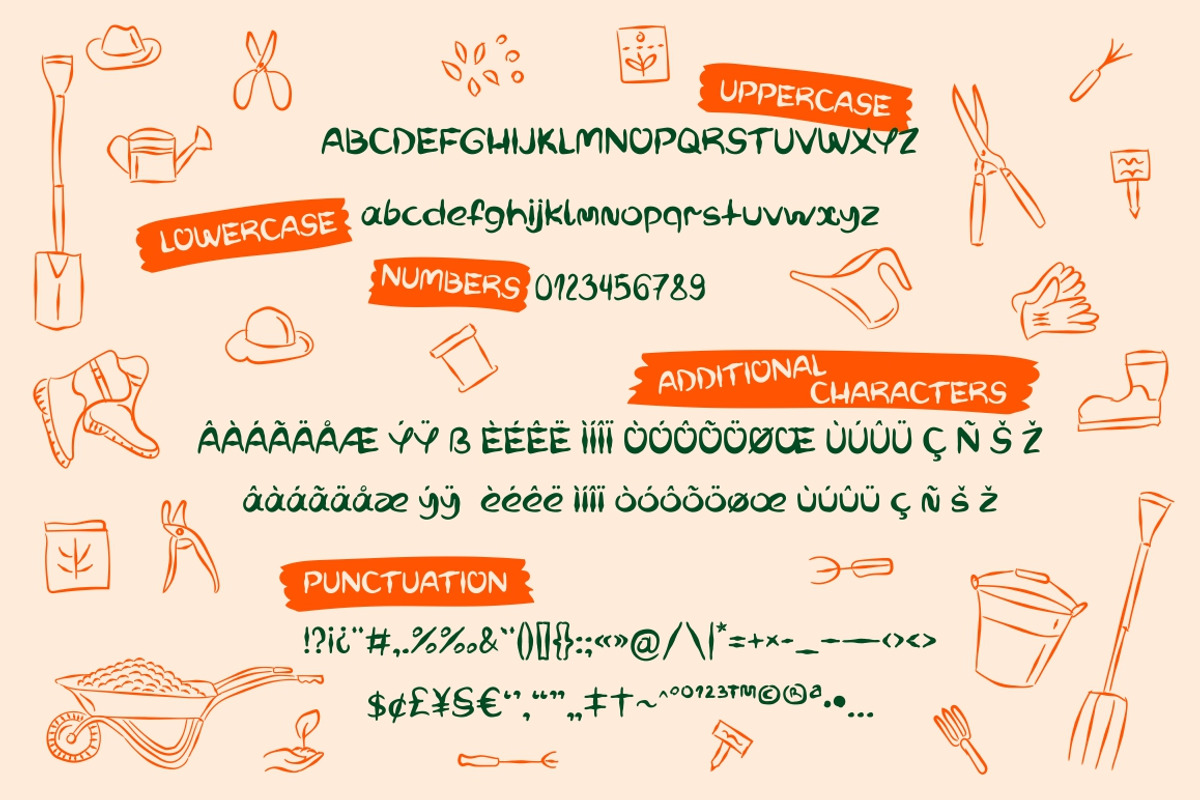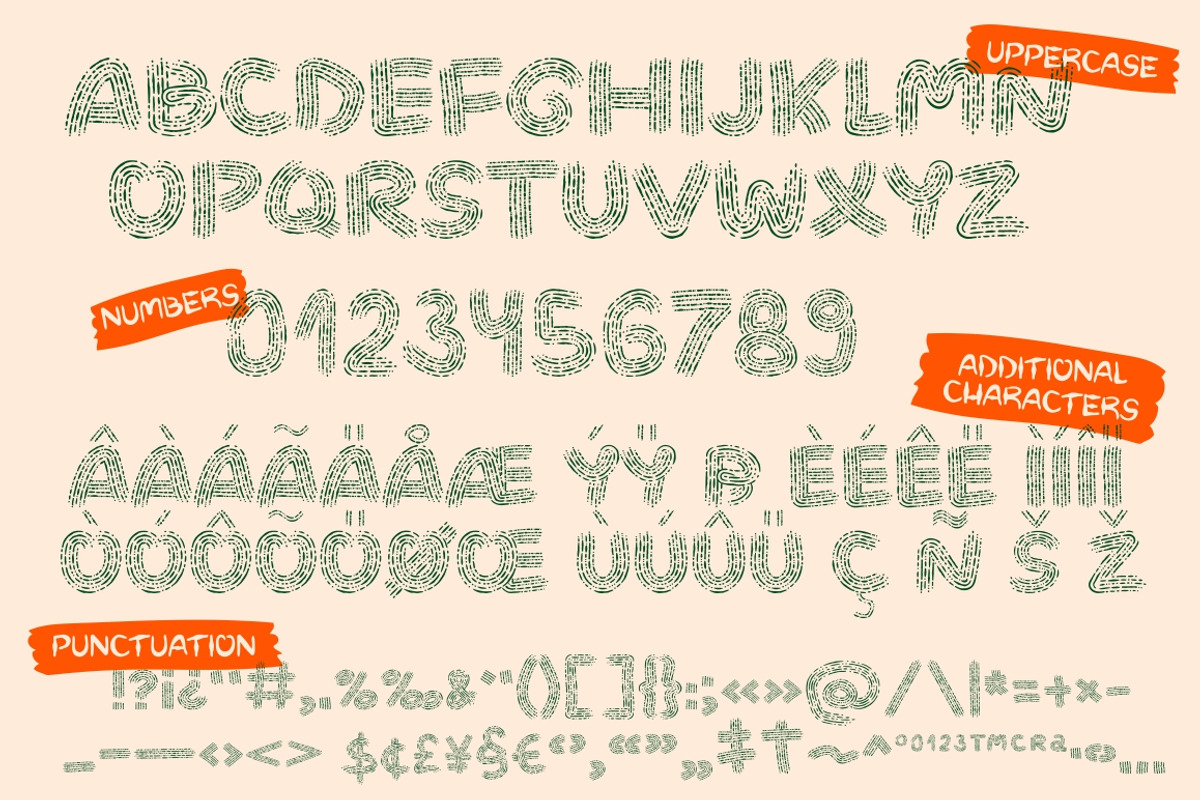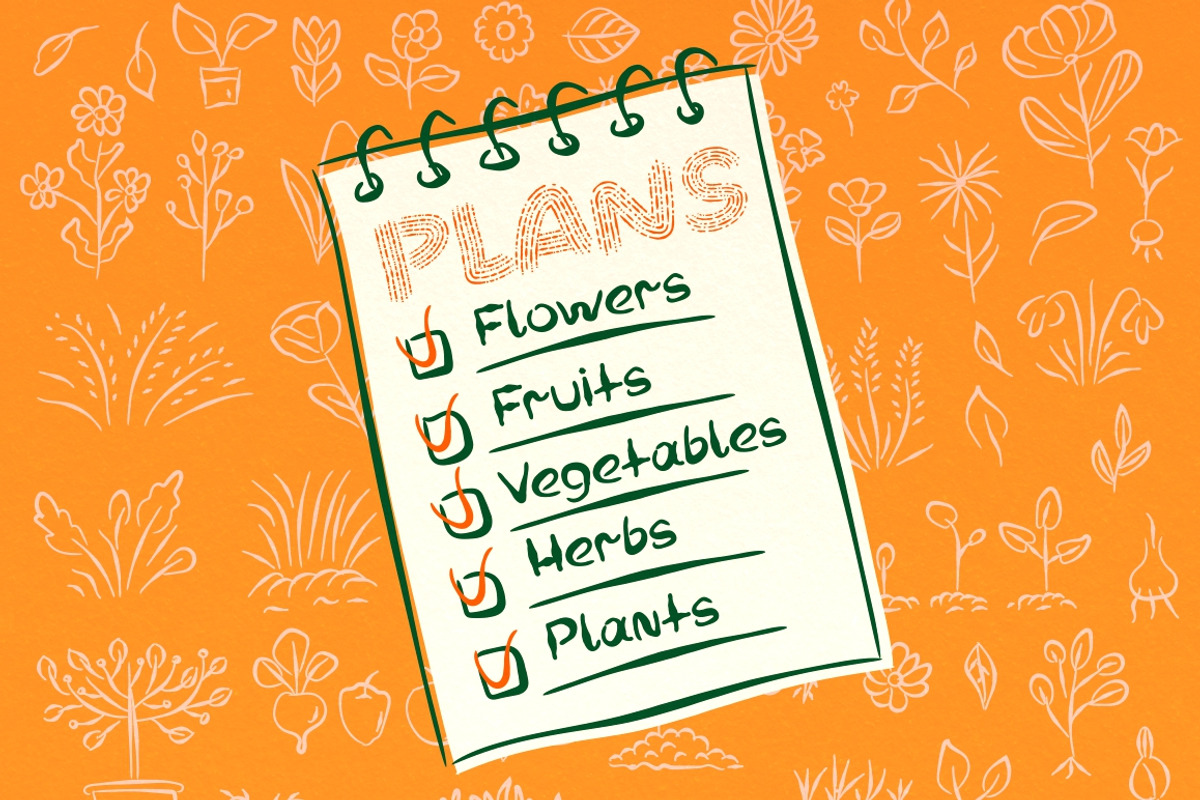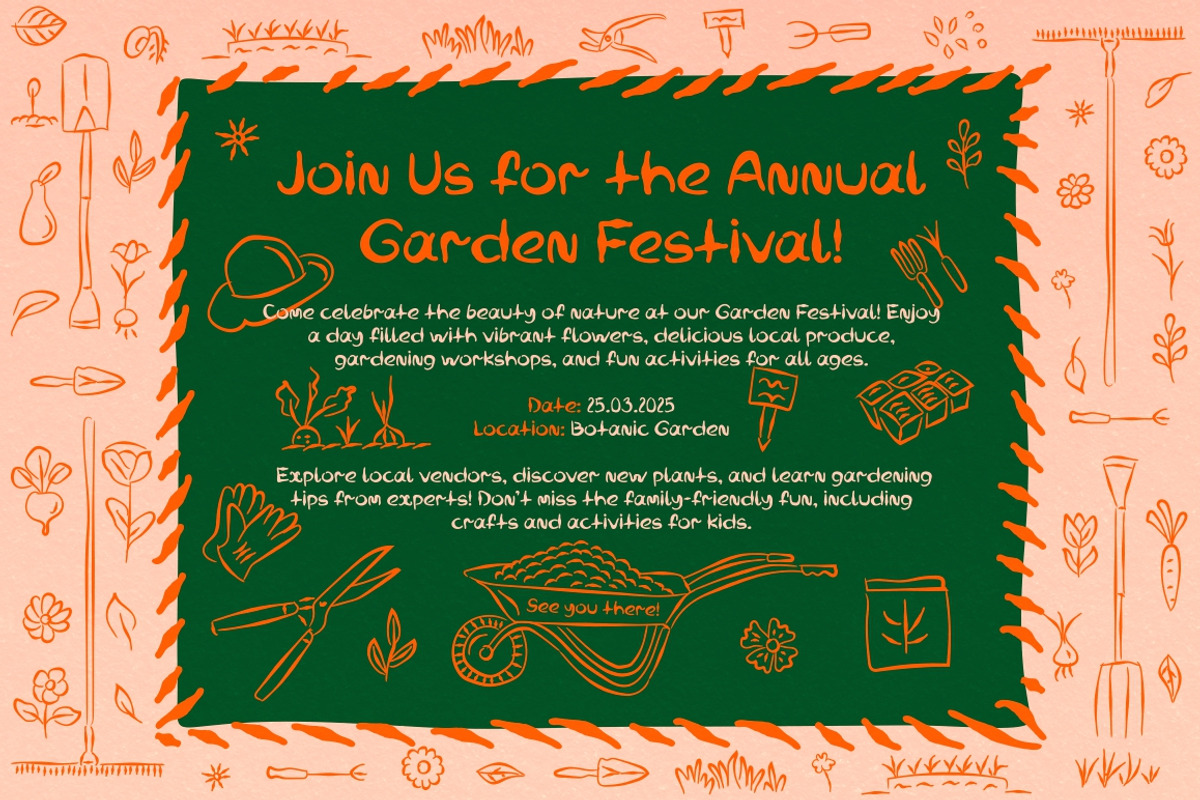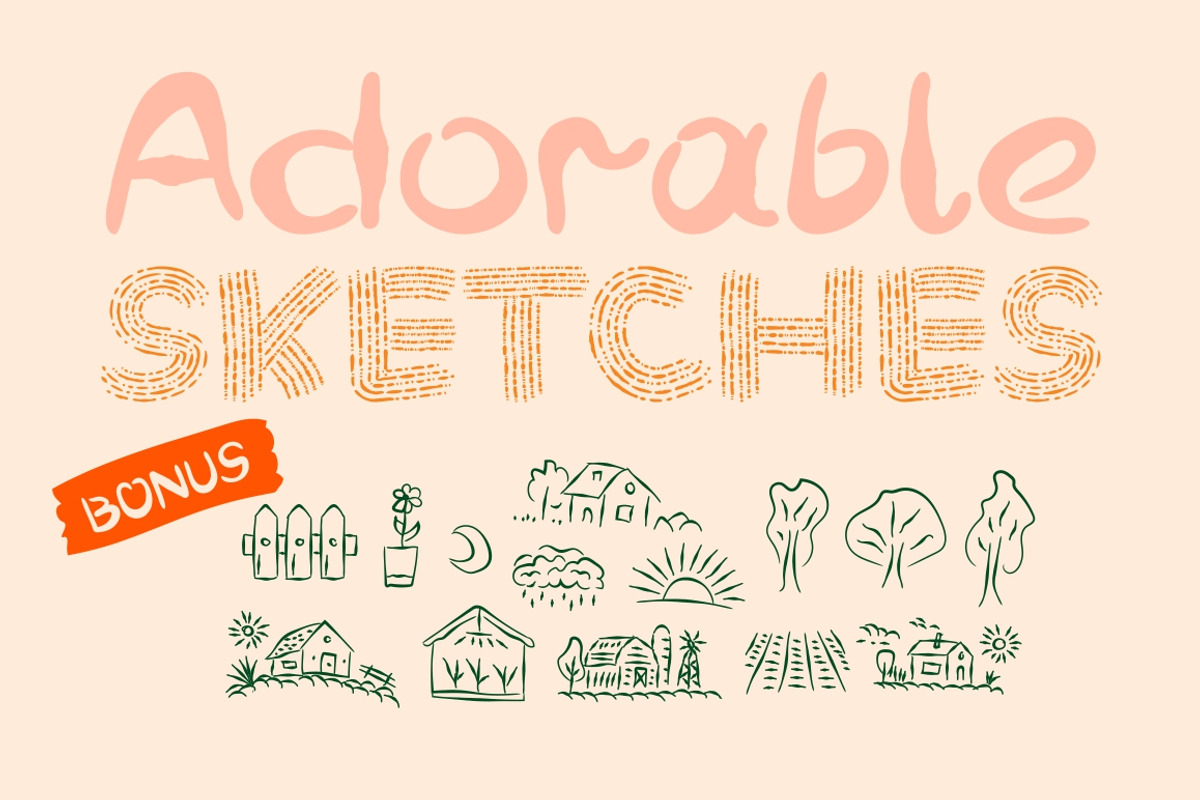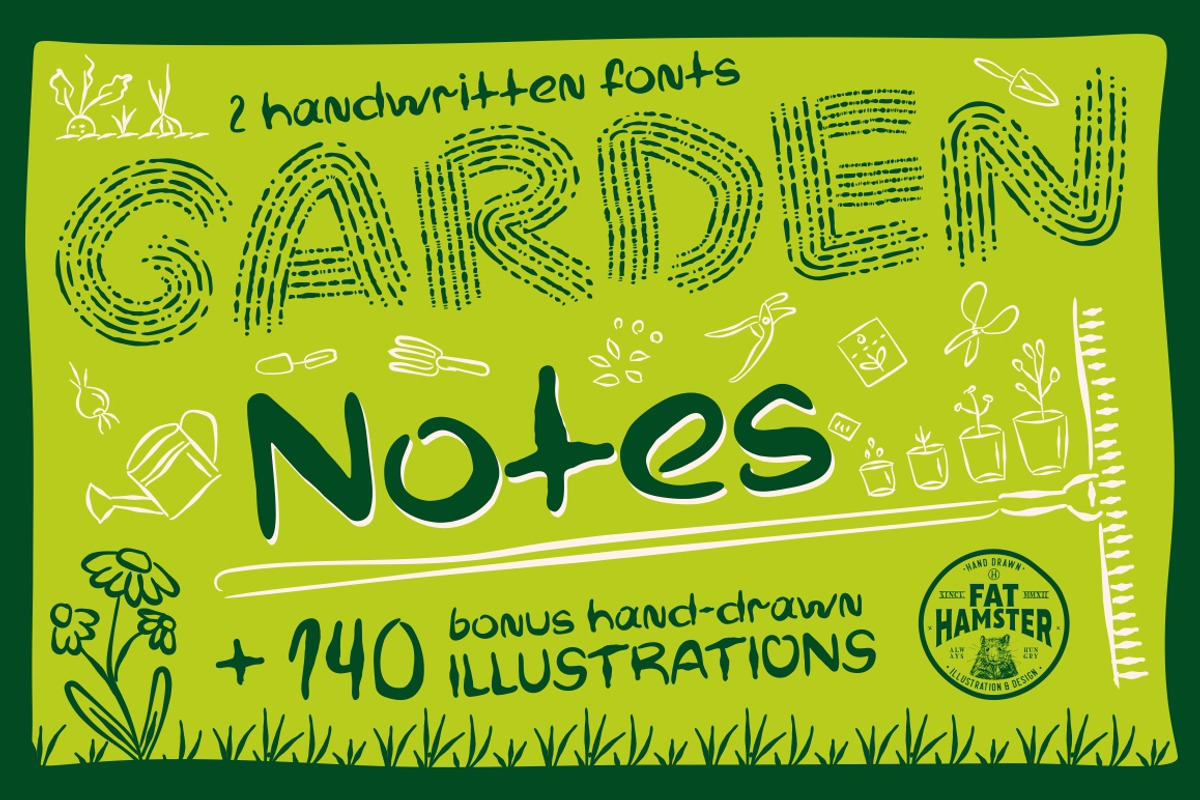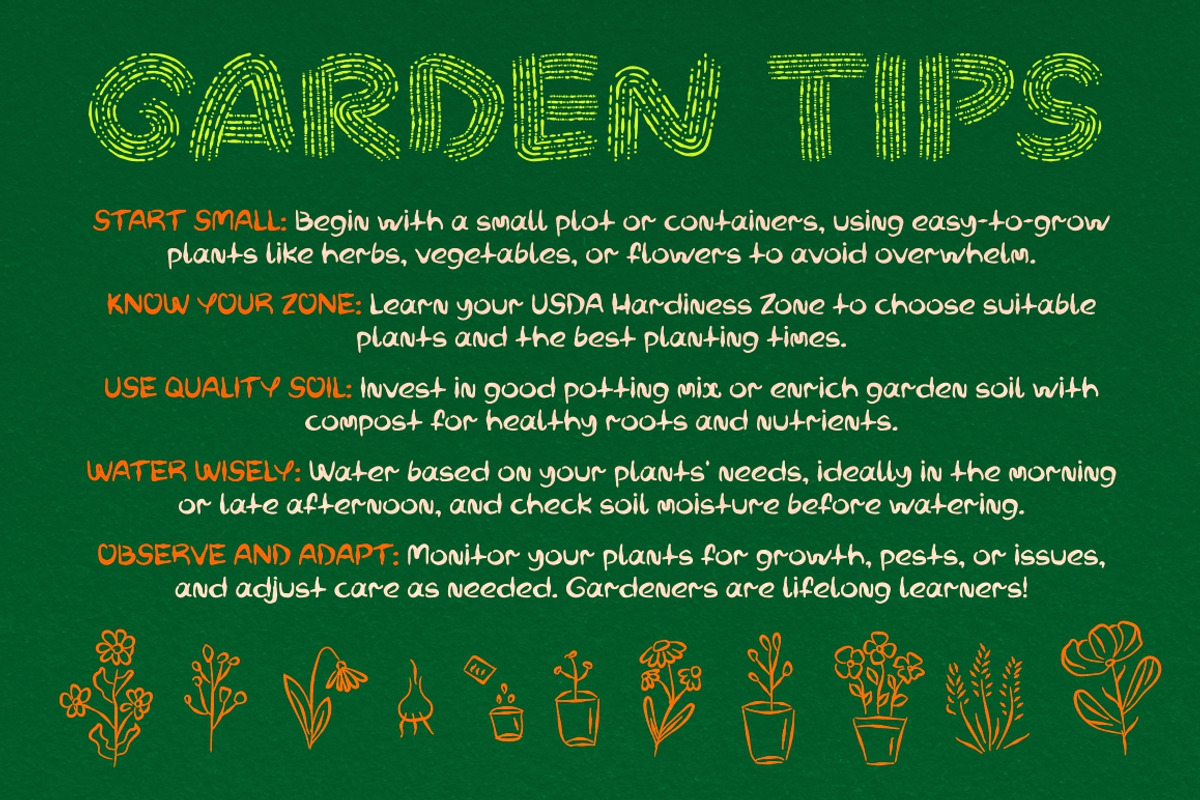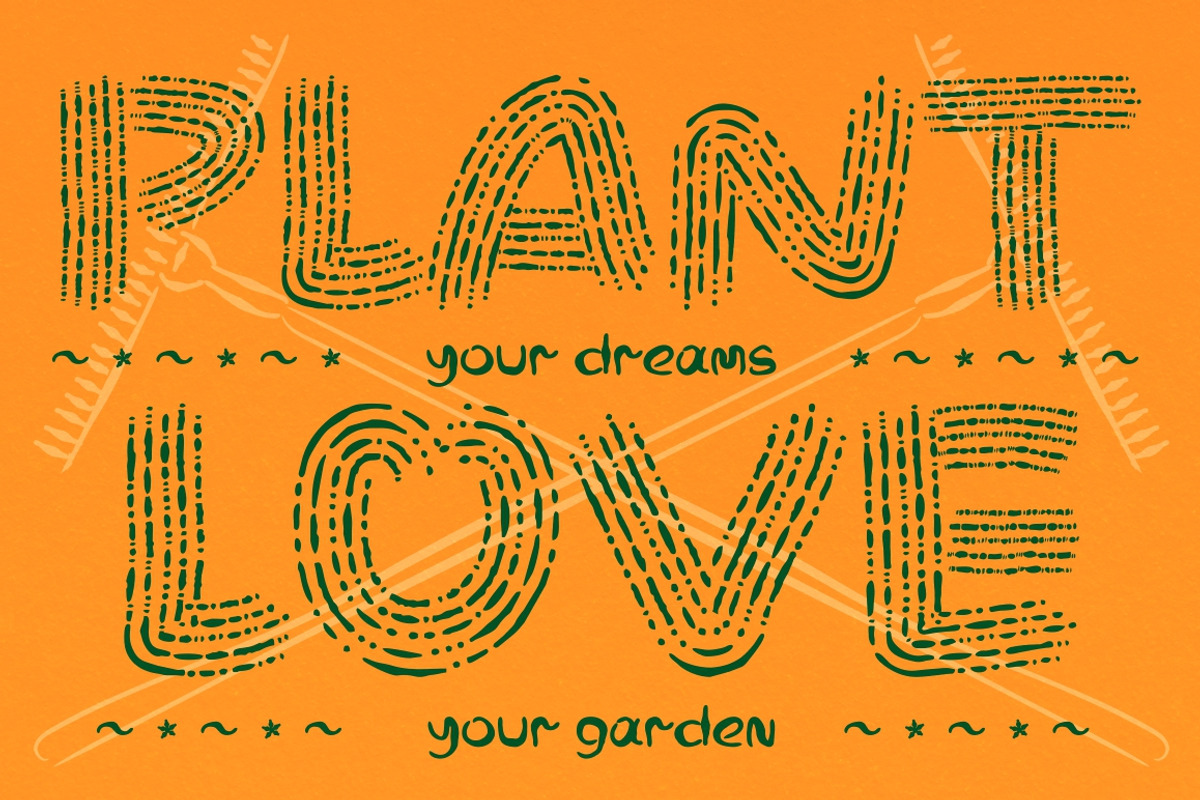
Garden Notes handwritten font
Garden Notes & Garden Rake - Handwritten font duo, includes 2 font styles.
Introducing Delightful Duo of Handwritten Fonts: Garden Notes & Garden Rake!
Get ready to dig into the charming world of gardening with our two new handwritten fonts, perfect for all your design projects! Whether you’re crafting cute notes or sprucing up a notebook, these fonts are here to sprinkle a little magic into your creations.
Garden Notes: This font bursts with playful vibes, showcasing the joy of gardening! Its fun, swirling letters will make your text feel like a sunny day in the garden. Each character is designed to capture the essence of nature, making it ideal for anything from invitations to inspirational quotes.
Garden Rake: Embrace the simplicity and warmth of gardening tools with this unique, handwritten font. Inspired by the traditional rake, it brings a touch of rustic charm to your designs. Perfect for BIG projects, backgrounds, banners and more—this font is sure to cultivate creativity! Both fonts come with 140 hand-drawn illustrations that complement your designs beautifully, adding that extra sprinkle of creativity. Whether you're designing for a garden-themed party or just want to add some floral flair to your notes, our fonts are the perfect companions for gardening enthusiasts and design lovers alike! Invite a little fun into your projects and watch your ideas blossom with these cute, garden-inspired fonts. Let your creativity grow!